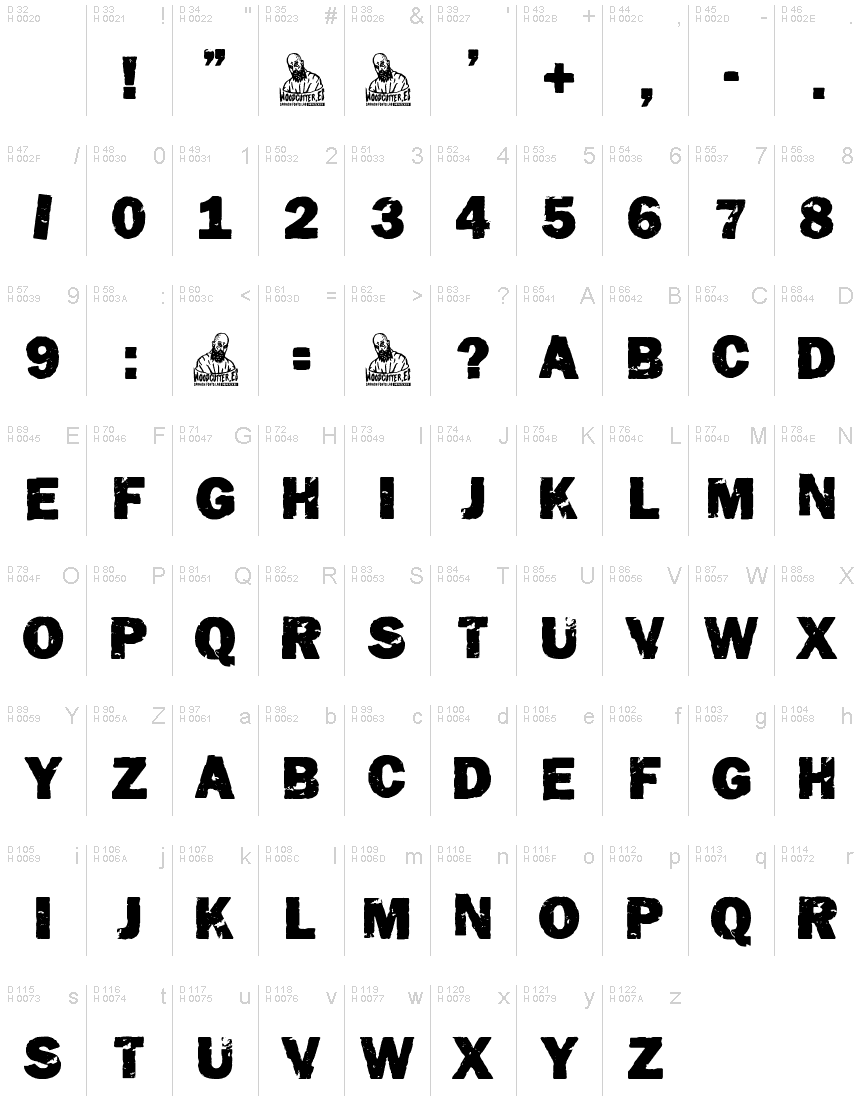
The Camposanto
The Camposanto, crafted by the visionary Woodcutter, is a bold display font that commands attention with its eroded texture, echoing the mystique of ancient inscriptions. Its robust character shapes are ideal for projects aiming to evoke a sense of time-worn wisdom or edgy contemporary aesthetics.
Whether gracing the cover of a novel, headlining an avant-garde event poster, or branding an artisanal business, The Camposanto's unique style ensures your creative endeavors will stand out with an unforgettable typographic presence.